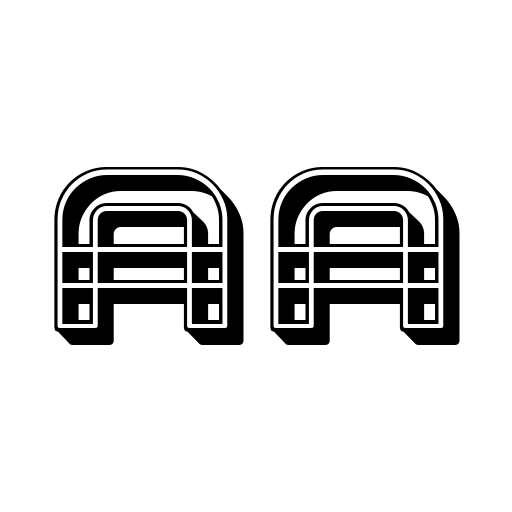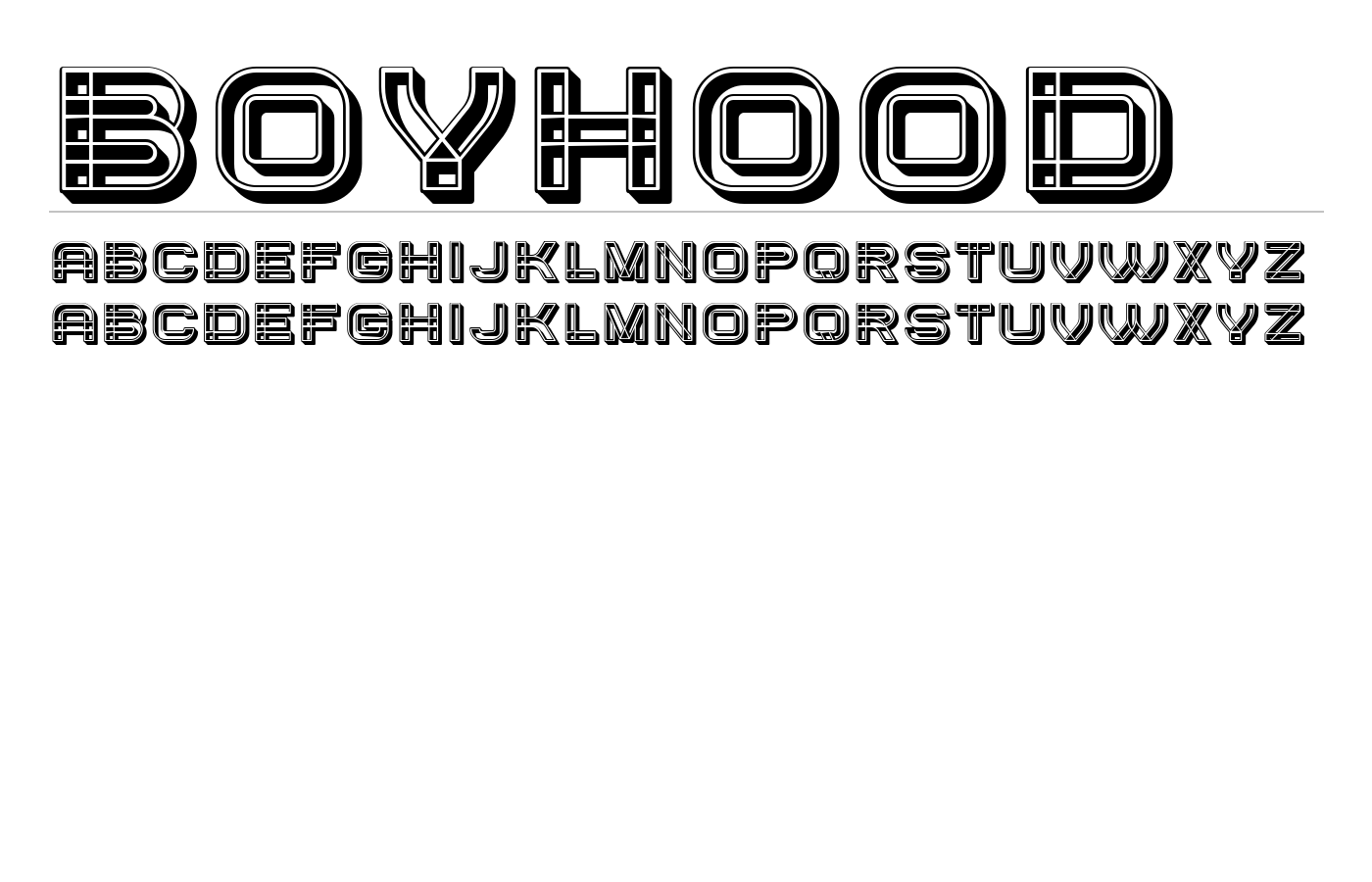
Boyhood is a bold, decorative sans serif font with a modern, geometric feel and a unique layered design that adds depth and visual interest. Its structured letterforms and bold strokes make it perfect for eye-catching headlines, logos, and playful branding where a distinct, stylish impact is desired. This font works particularly well in creative and contemporary contexts that seek to combine fun with a strong visual presence.
Boyhood Font
About Boyhood Font
| Font family | Boyhood Font |